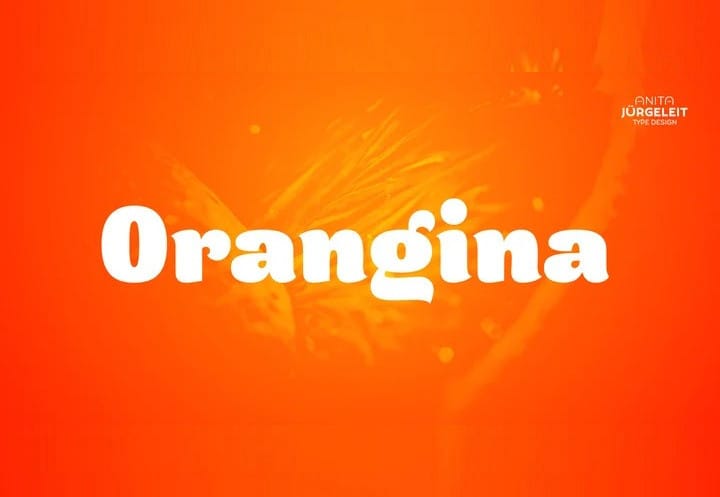
Orangina Font
Orangina Display Font is a Display font that has an extreme bold body, but still has high contrast. It’s designed and shared by Anita Jürgeleit. What can be better than releasing a hot summer font in winter time! Honestly – all the images are ice blue or white.
Christmas stuff is everywhere and ‘Jingle Bells’ torment your ears! But here it comes to catch you: Bold! Orange! And loaded with visual vitamins that stand out in the rainy days! Step out of the dark and melt the cold ice between you and your creations by using this gorgeous letter shapes to take your design to an exceptional level high between the clouds. You think, I’m kidding? Maybe a bit. But it’s a great font, though!
Orangina comes with an extensive characterset of 477 glyphs, covering a broad range of latin languages. Extended number- and currency set with symbols like Bitcoin and Rupees and many more.